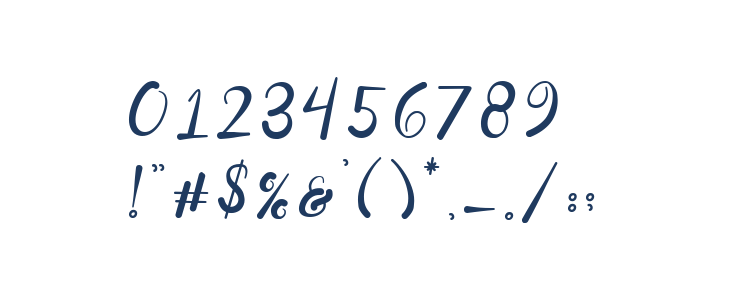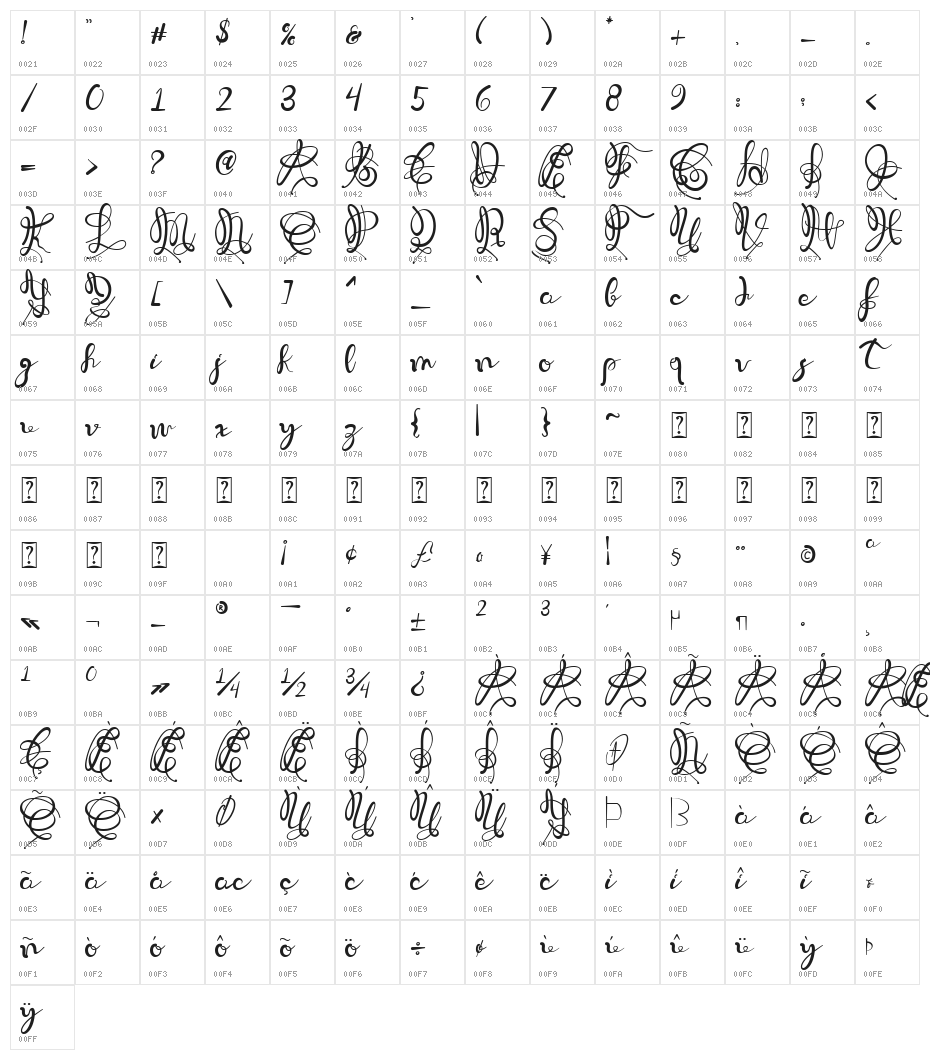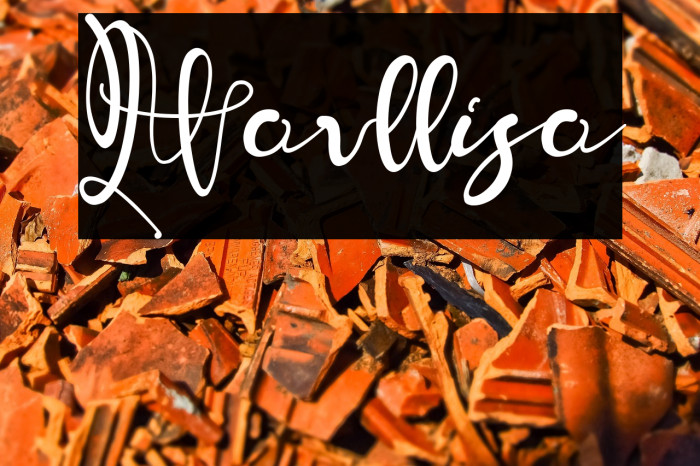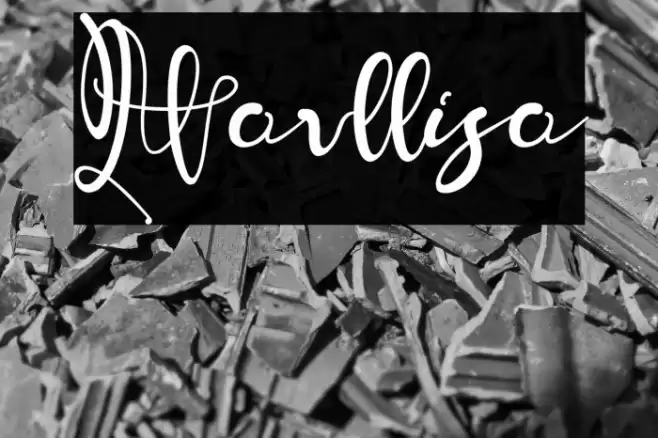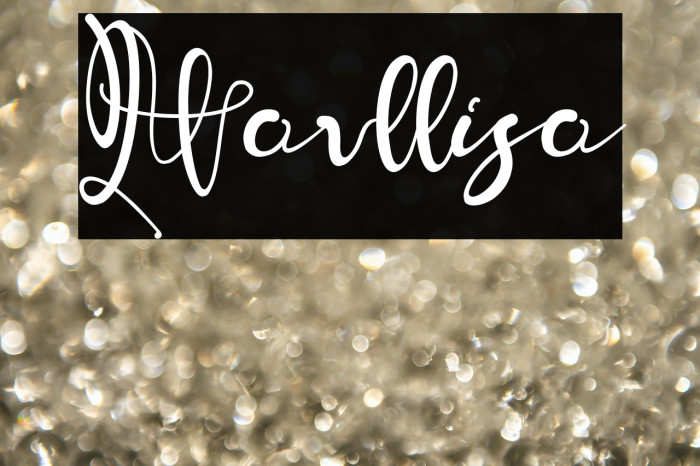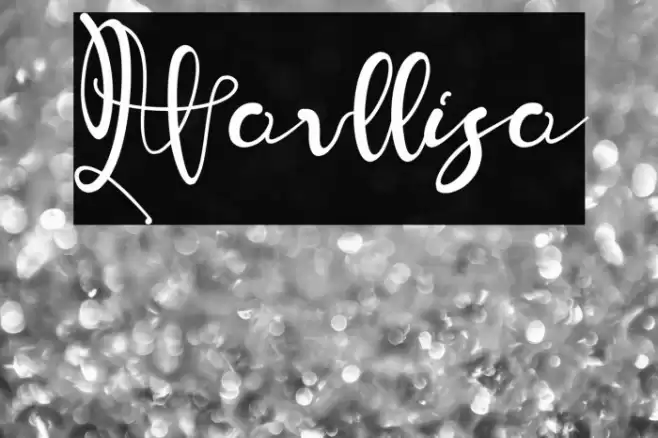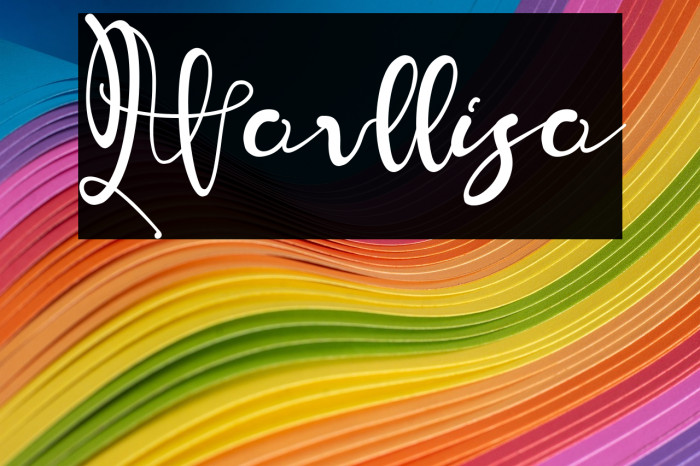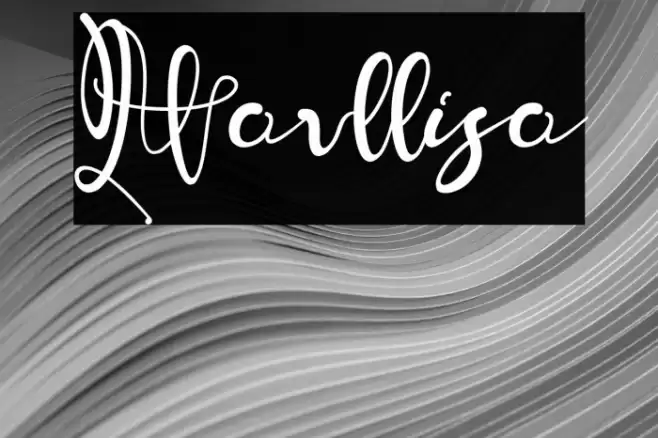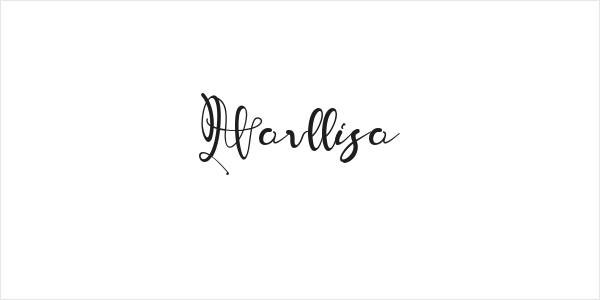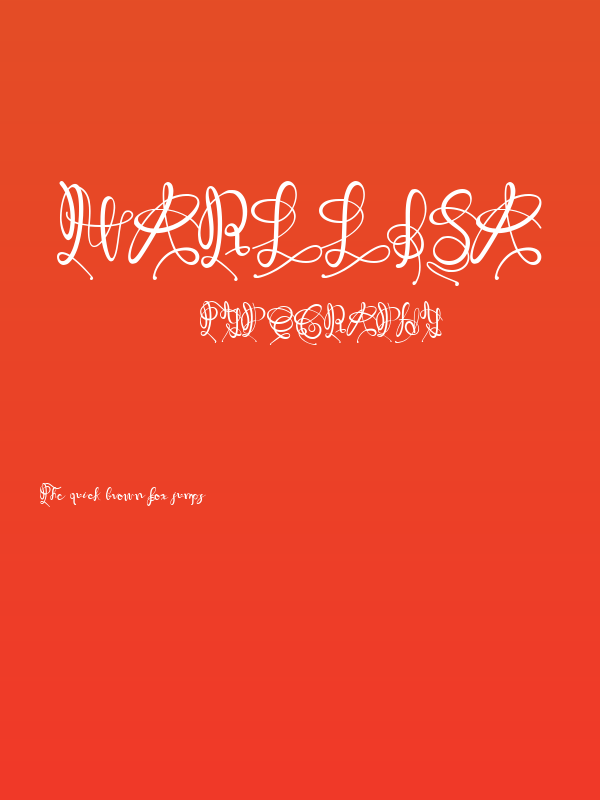
Warllisa Font
Warllisa Description
This font is an intricate and elegant script style characterized by its flowing, interconnected letters. The uppercase letters are highly decorative, featuring elaborate swirls and loops that give a sense of sophistication and artistry. The lowercase letters maintain a smooth, cursive flow, offering a more readable contrast to the ornate uppercase. The numerals are consistent with the script style, featuring gentle curves and a slightly playful appearance. Special characters are designed with the same attention to detail, ensuring they blend seamlessly with the overall aesthetic. This font is perfect for projects that require a touch of elegance and creativity, such as invitations, branding, or artistic designs.
| Use Case | Logos, Invitations, Artistic Designs |
| Proposed Projects | Ideal for wedding invitations, luxury branding, artistic projects, and decorative headings. |